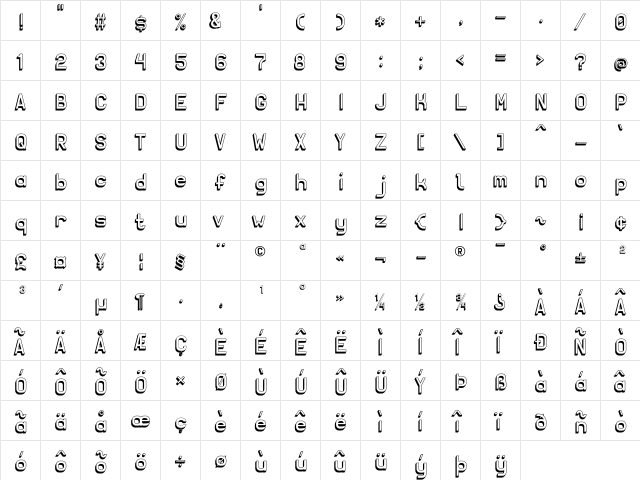
SolidSans 3D
| Style | 3D |
Design Context for SolidSans Typeface
SolidSans takes a measured approach to typography — its balanced proportions and neutral character make it a reliable workhorse for both digital and print work.